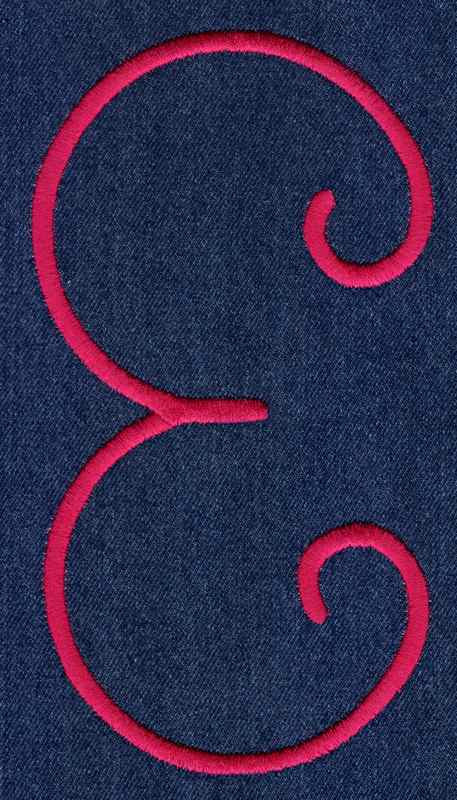
499 JUMBO Shooting Star Satin Font
Shooting Star Satin Font JUMBO comes in 5", 6", 7" and 8" heights based on the height of the capital "A". All sizes are included in the purchase price and are finished in Satin Stitching. All sizes include uppercase letters, lowercase letters, numbers, four punctuation marks and two star motifs. This set will require 5"x7" and larger hoops to stitch out.